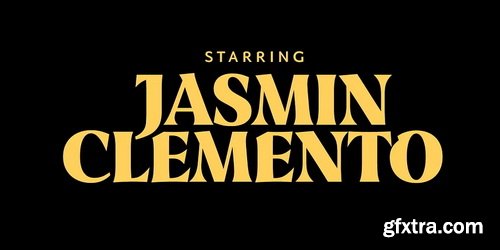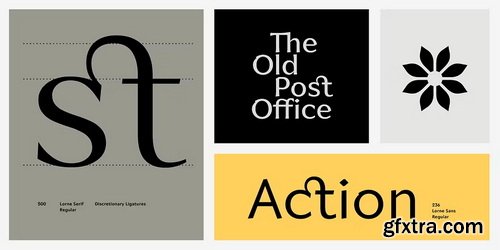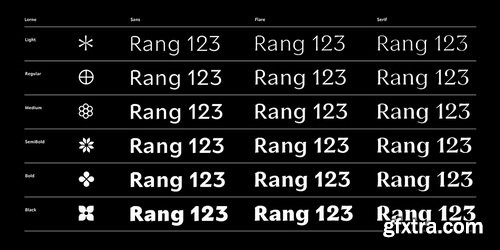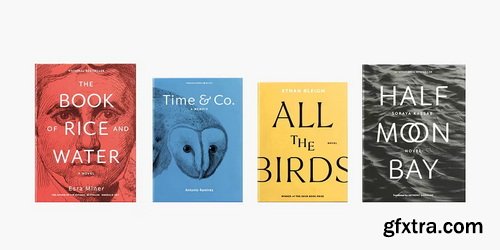
MyFonts - Lorne Font Family
Lorne is an expressive type family in three styles, Sans, Flare, and Serif, and ranging from Light to Black. The design combines carefully drawn details inspired by calligraphy and incised letterforms. This fusion creates a unique appearance that remains classic overall, thanks to humanist design proportions. Lorne's three styles make it a distinctive choice for strong branding and robust editorial design, as well as eye-catching one-offs like book covers or album art. Calligraphic details, slanted terminals, and flared serifs are defining visual characteristics. These design qualities are complemented by numerous OpenType features that enhance Lorne's design capabilities. Included are Celtic caps, substitute designs for the ampersand, ordinary-shaped 'o's, and a double-storey 'g' as stylistic alternates. Catchwords, arrows, and a set of symbols supplement a character set that covers over 200 Latin languages.